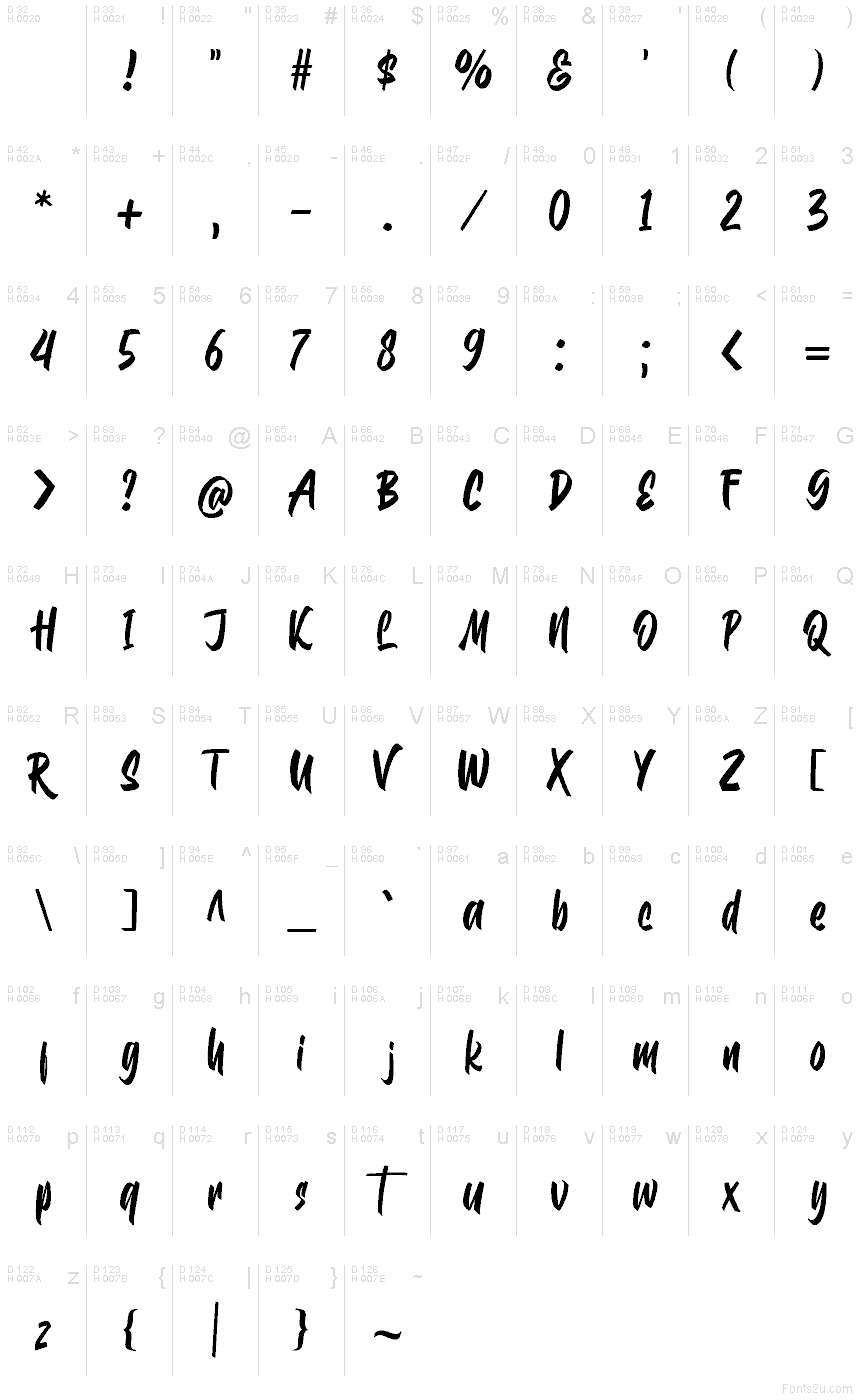
Rusthack
Rusthack font by Arterfak Project is a free brush typeface. Built on muscular, inky strokes with slightly frayed edges, it carries that fresh-from-the-marker energy—confident slashes, tight joins, and a lively bounce that keeps the wordshape moving. Thick-to-thin tapers and chisel-cut terminals add grit without losing clarity, so it reads fast at a glance while still feeling handcrafted.
Using Rusthack, headlines snap with attitude—great for logo marks, streetwear graphics, packaging, poster titles, café boards, and punchy social posts. The rhythm is compact and loud, so give it breathing room and scale it big. Pair this free font with a light, condensed sans for body copy to let its raw brush texture take the spotlight.